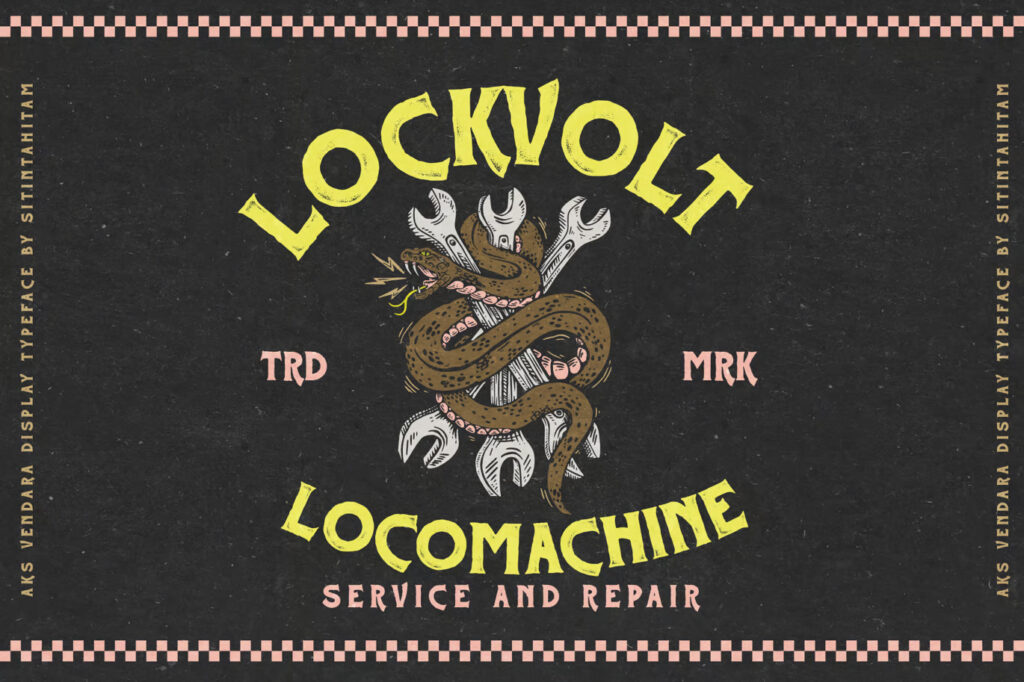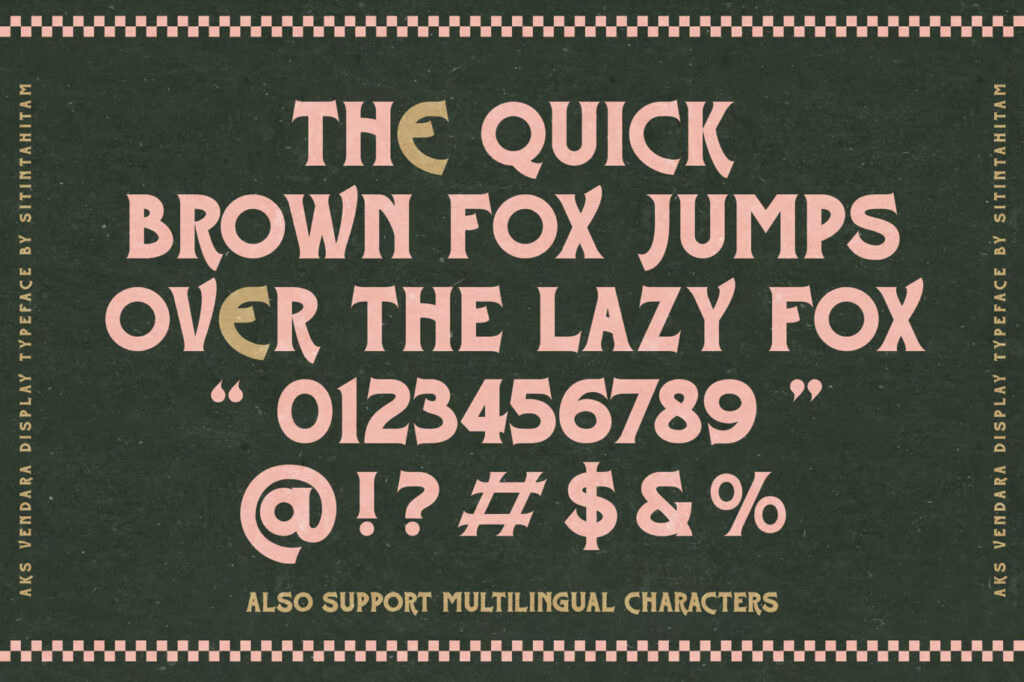
Aks Vendara is a bold and dynamic display typeface that comes in three distinct styles: Regular, Stamp, and Inked. Inspired by the rebellious spirit of motorcycle and custom culture, Aks Vendara exudes a vintage yet rough feel, making it perfect for projects that require a rugged, gritty aesthetic. Whether you’re designing branding materials, logos, posters, packaging, or any other graphic design project, this typeface adds a touch of personality and authenticity to your creations.
With its unique, hand-crafted look, Aks Vendara is ideal for those looking to evoke the raw energy and freedom of custom motorcycles and vintage culture in their designs. The varied styles allow for versatile use, giving you the flexibility to adapt the typeface to different design needs.
AksVendara Serif Font